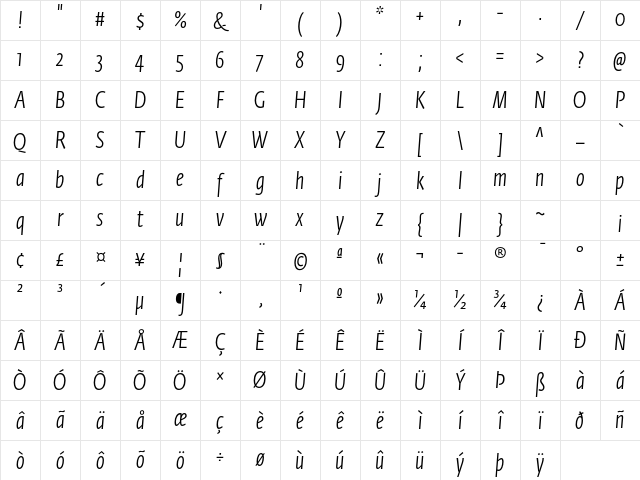
Fedra Sans Condensed Std Light Italic
Foundry: Typotheque type foundry
Designer: Peter Bilak (www.typotheque.com)
Design Context for Fedra Sans Condensed Std
Fedra Sans Condensed Std is a composed and adaptable typeface that performs quietly and consistently across a wide range of design contexts. The slanted form adds forward momentum and visual energy. Its slender proportions lend an understated elegance to any composition. Its narrow stance lets it pack a punch even in space-constrained designs.